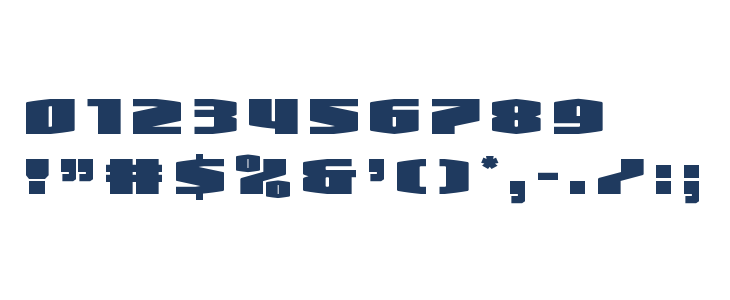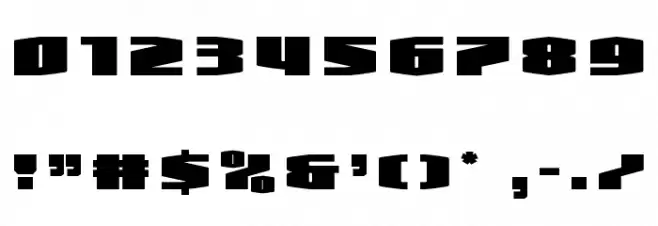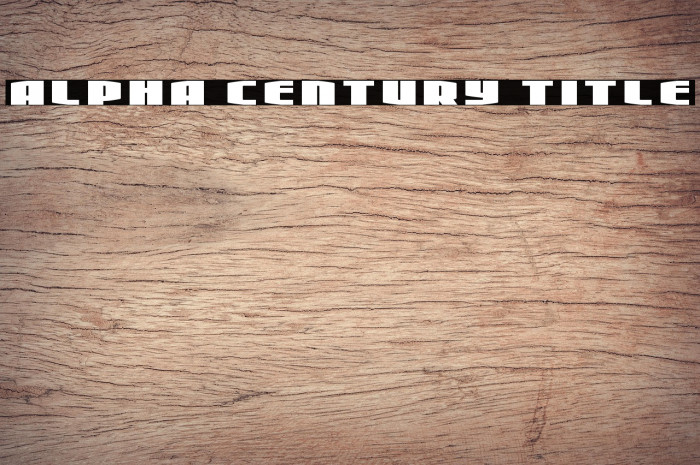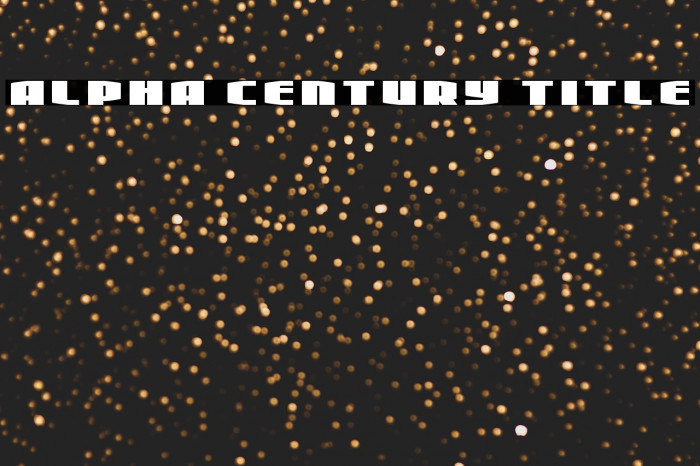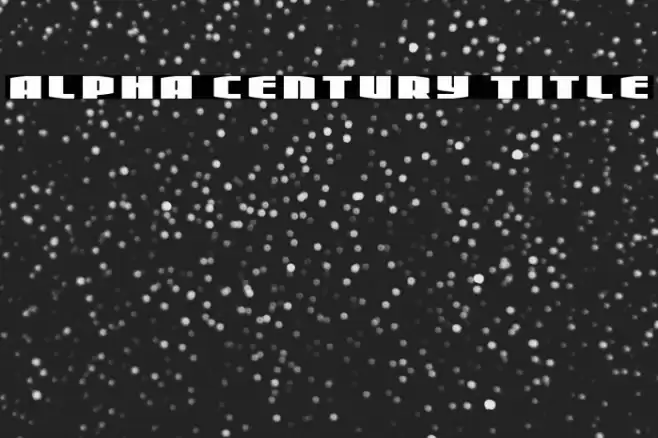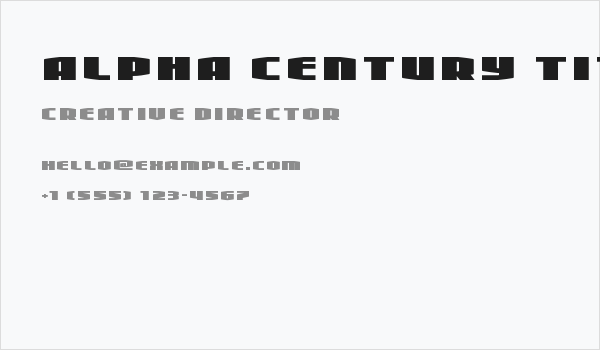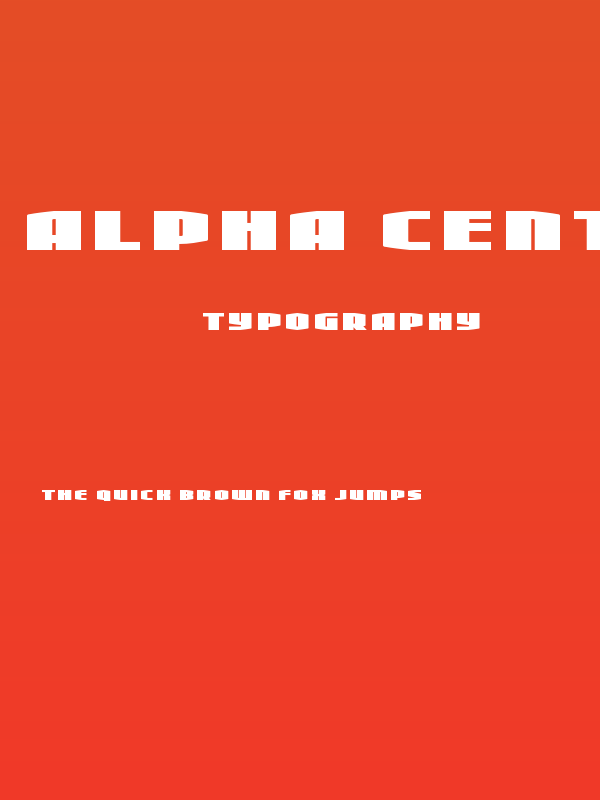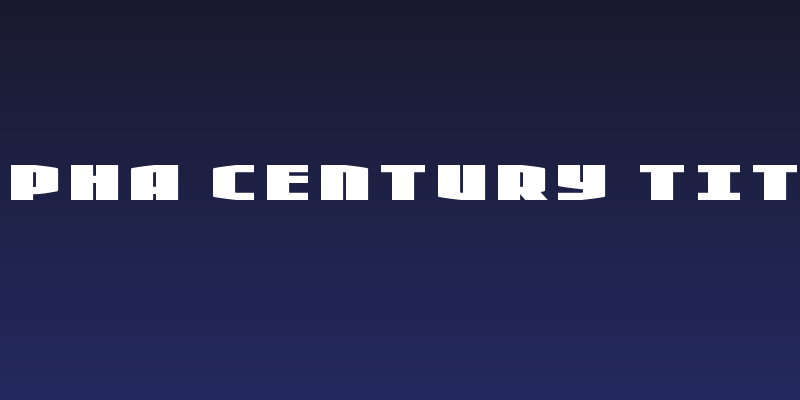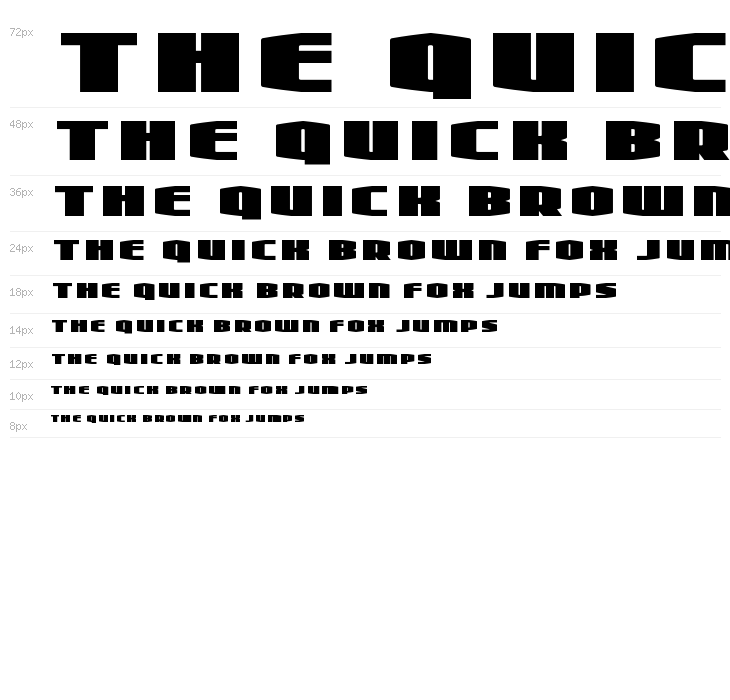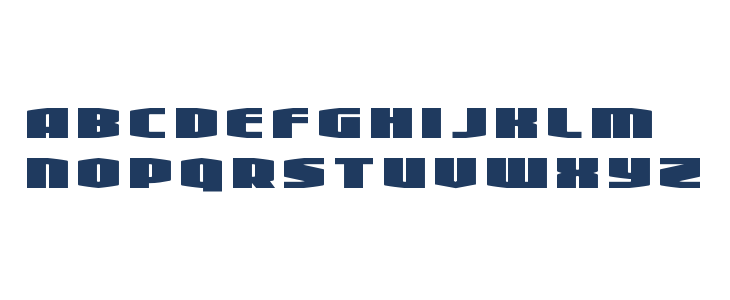
Alpha Century Title Font
Alpha Century Title Description
This font features a bold and futuristic design with a strong geometric influence. The characters are wide and blocky, with sharp angles and a distinct, modern aesthetic. The uppercase letters are particularly striking, with a uniform height and width that create a cohesive look. The lowercase letters maintain the same boldness, ensuring consistency across text. Numbers and special characters follow the same design principles, making them easily recognizable and visually appealing. This font is ideal for creating impactful titles and headlines that demand attention.
| Overall Style | Futuristic, Modern |
| Proposed Projects | Ideal for sci-fi themed projects, video game titles, movie posters, and branding that requires a modern and bold statement. |